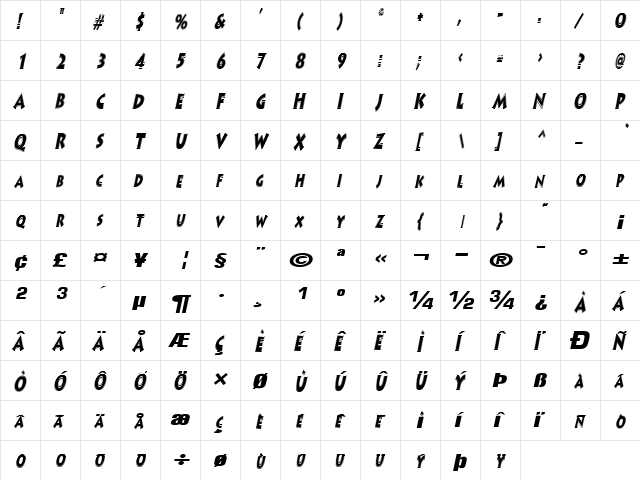
HanzelSCapsSSK BoldItalic Font Preview
Design Context for HanzelSCapsSSK Typeface
HanzelSCapsSSK takes a measured approach to typography — its balanced proportions and neutral character make it a reliable workhorse for both digital and print work. Its italic angle brings a sense of urgency and motion to the letterforms. Its bold stroke weight gives it real presence on the page.